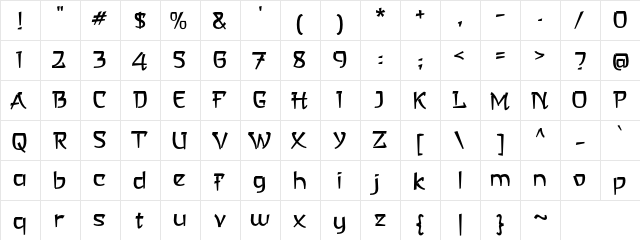
a Asian Hiro Regular
| Designer | Wahyu Eka Prasetya |
Design Context for a Asian Hiro Typeface
a Asian Hiro is a composed and adaptable typeface that performs quietly and consistently across a wide range of design contexts.